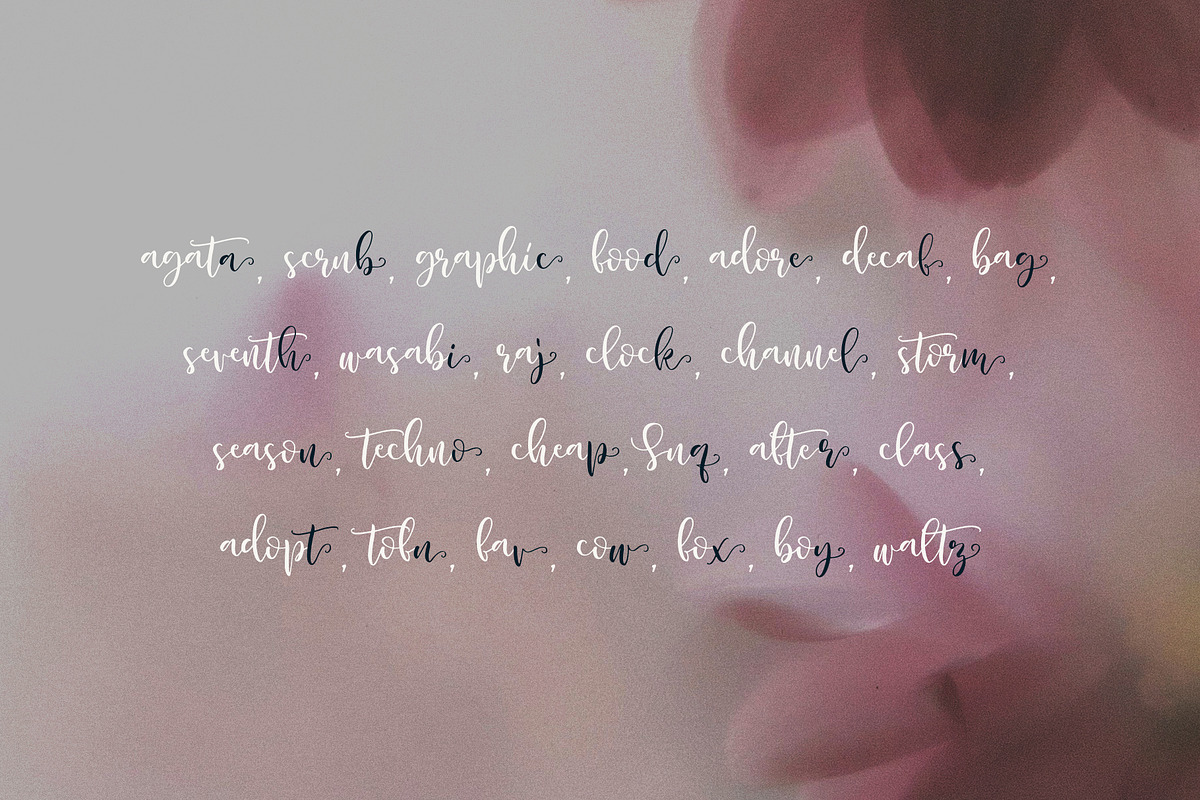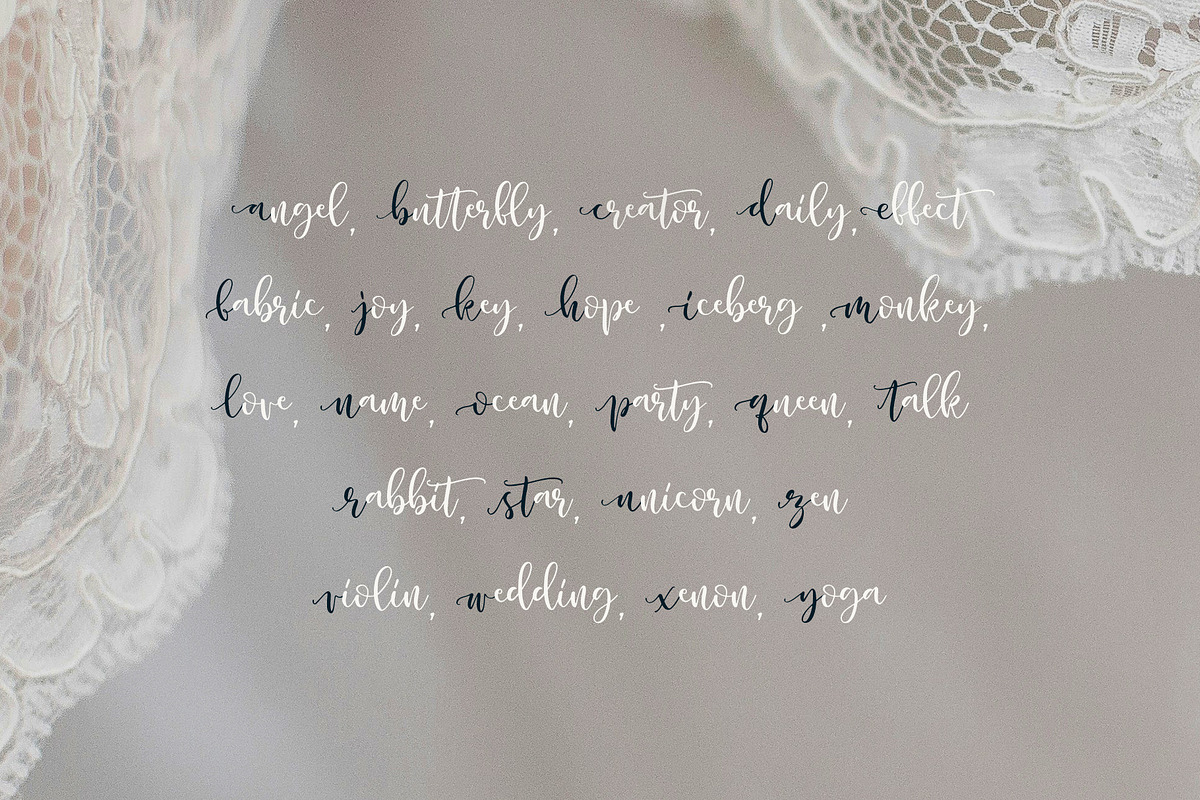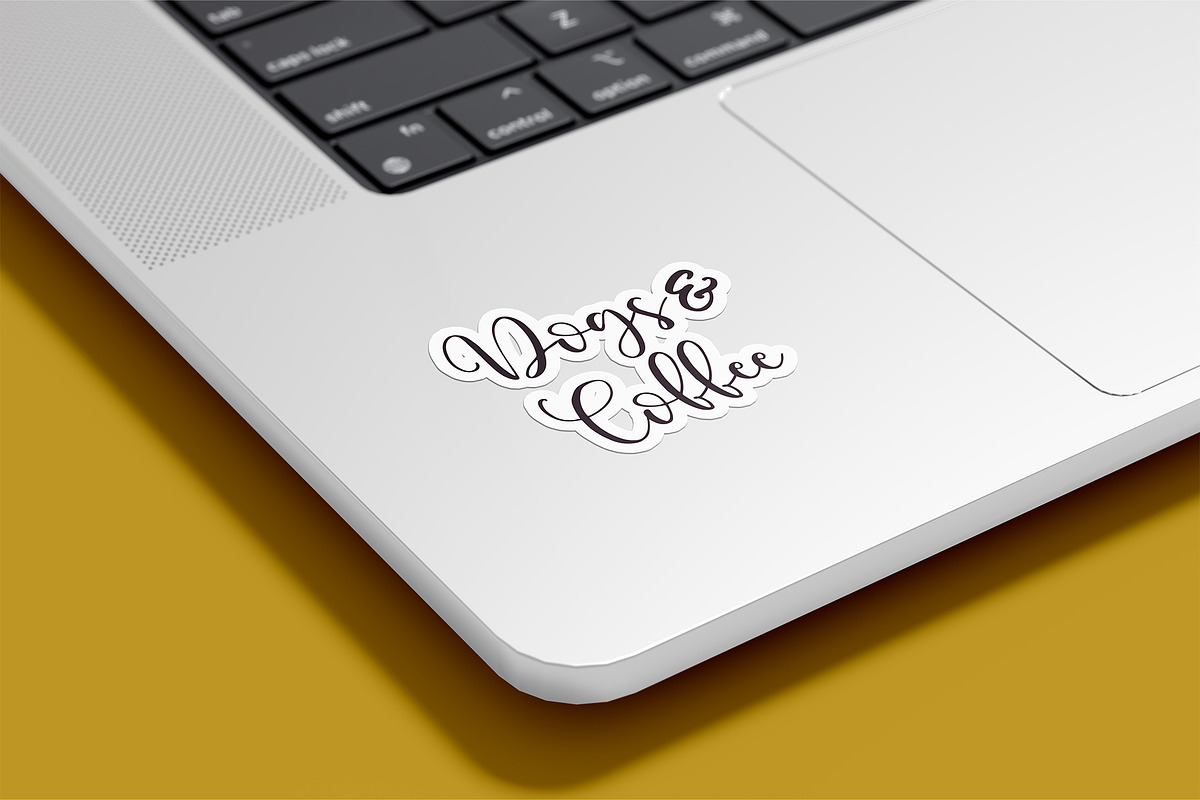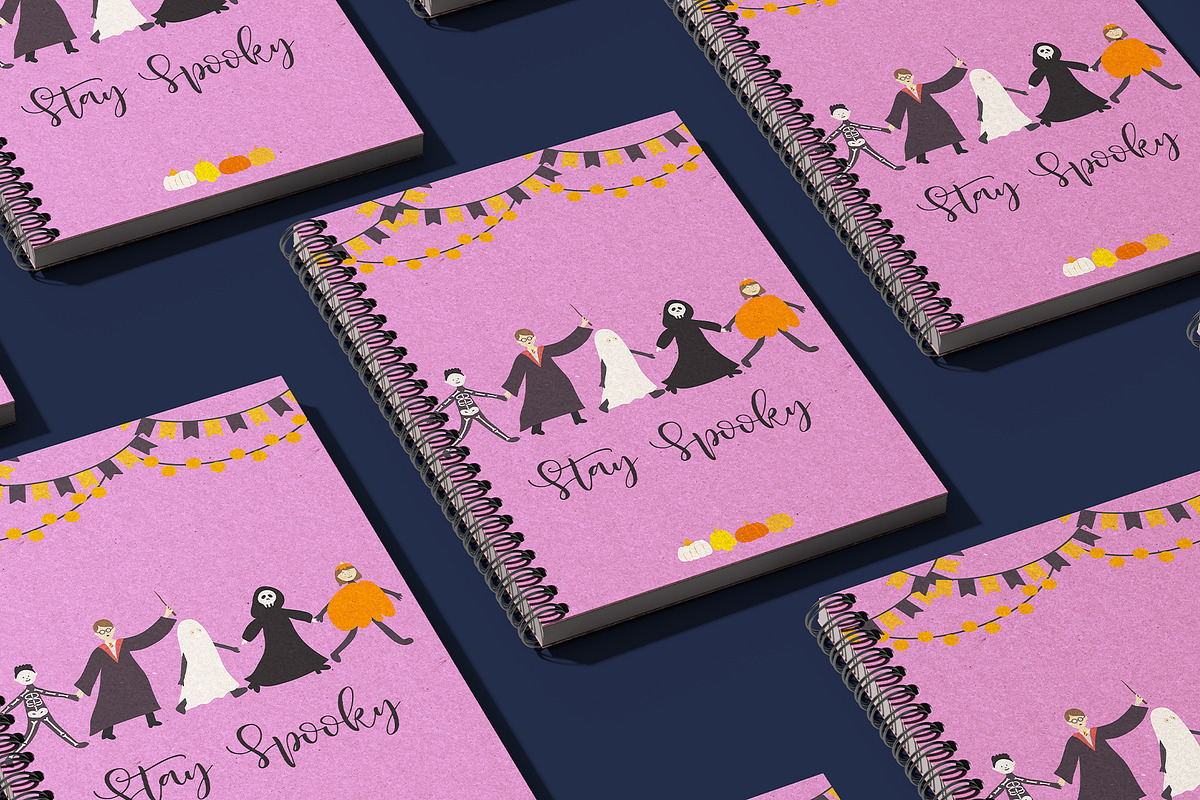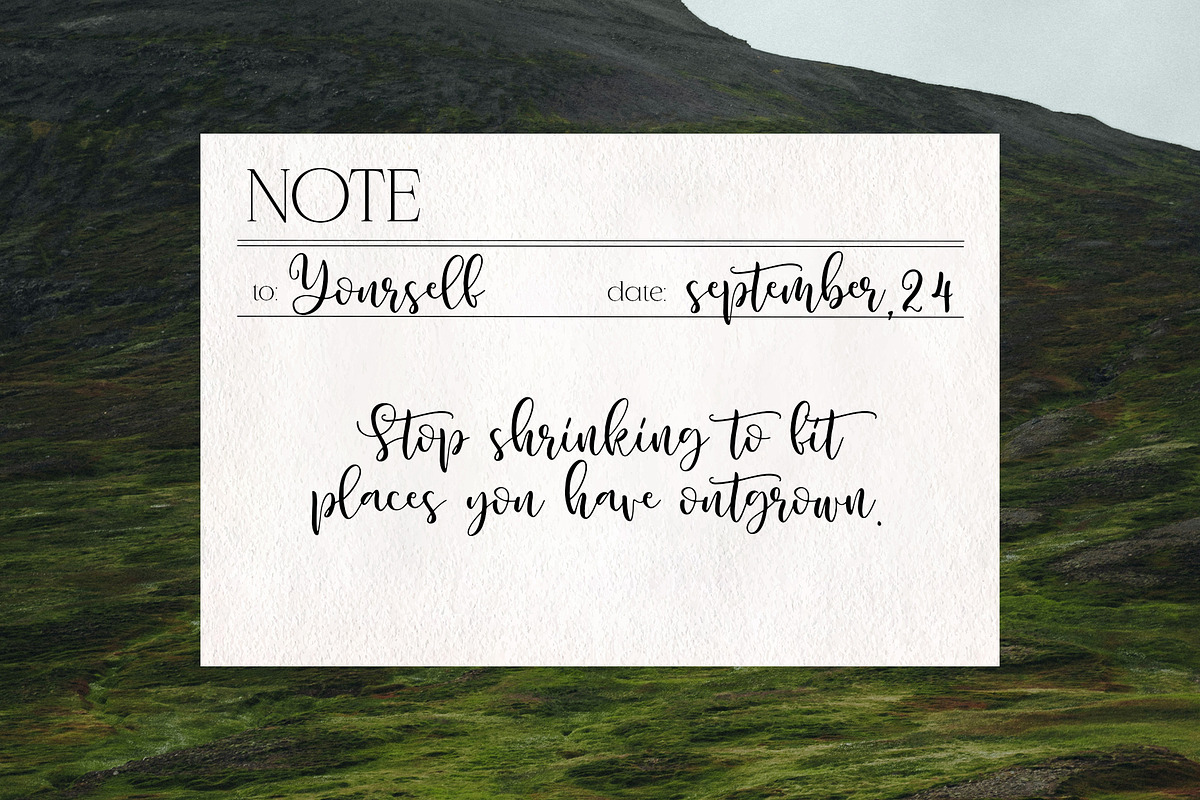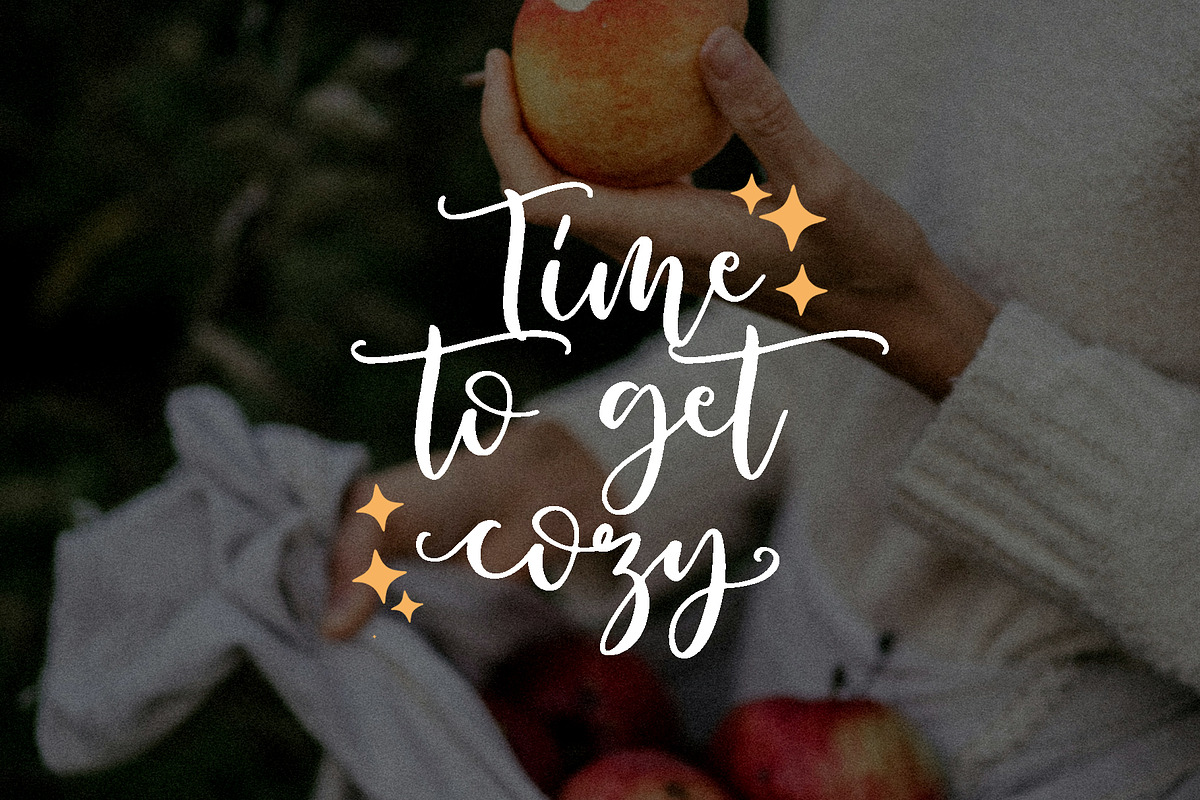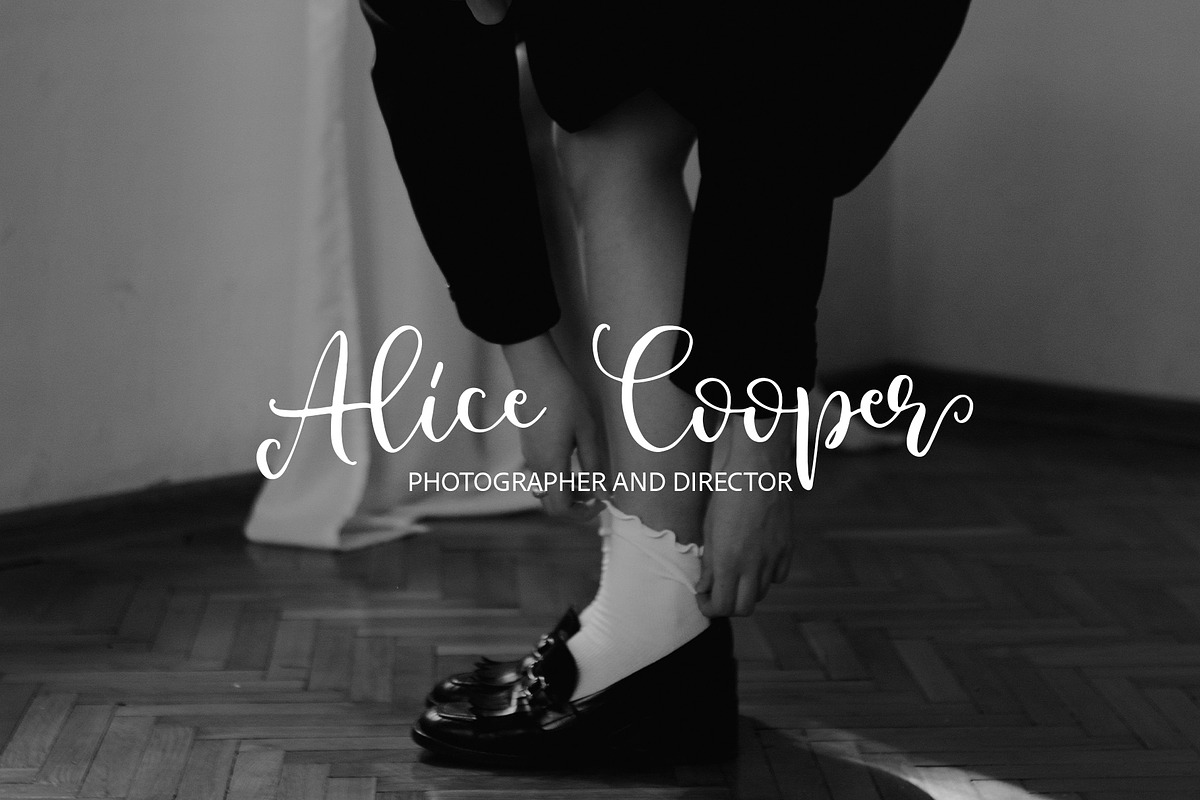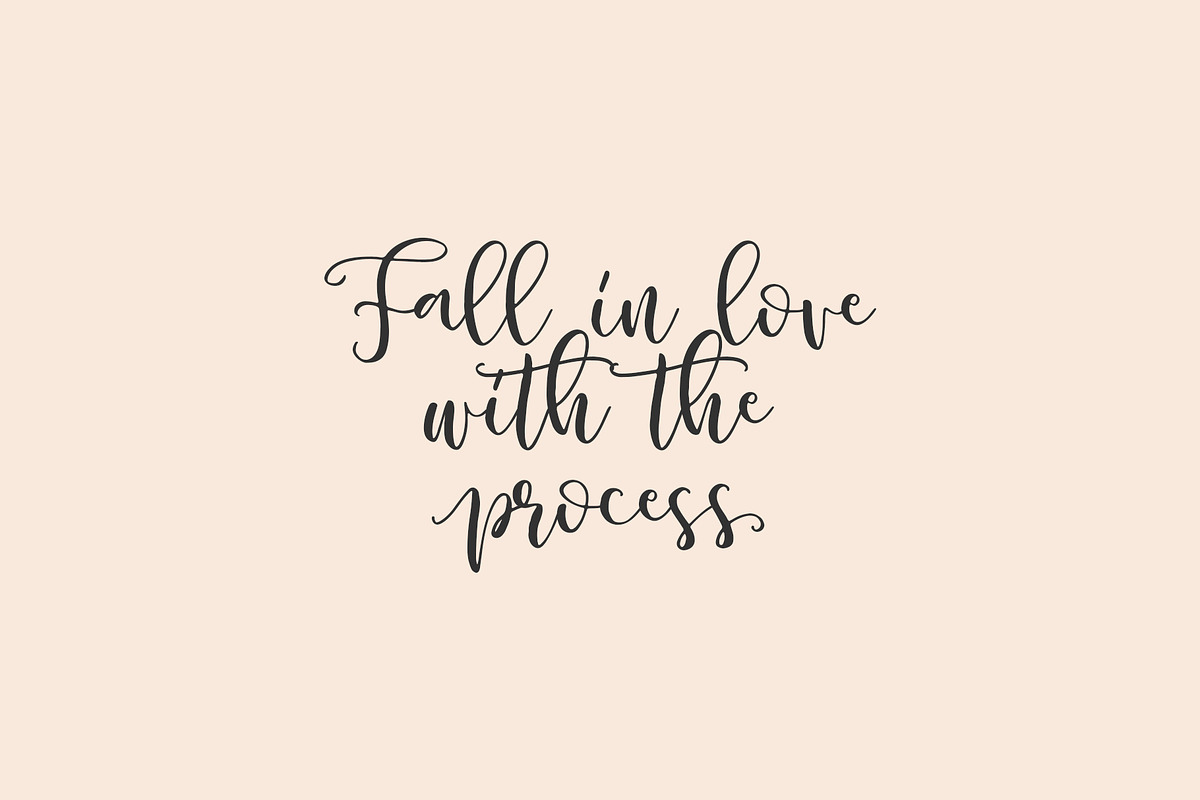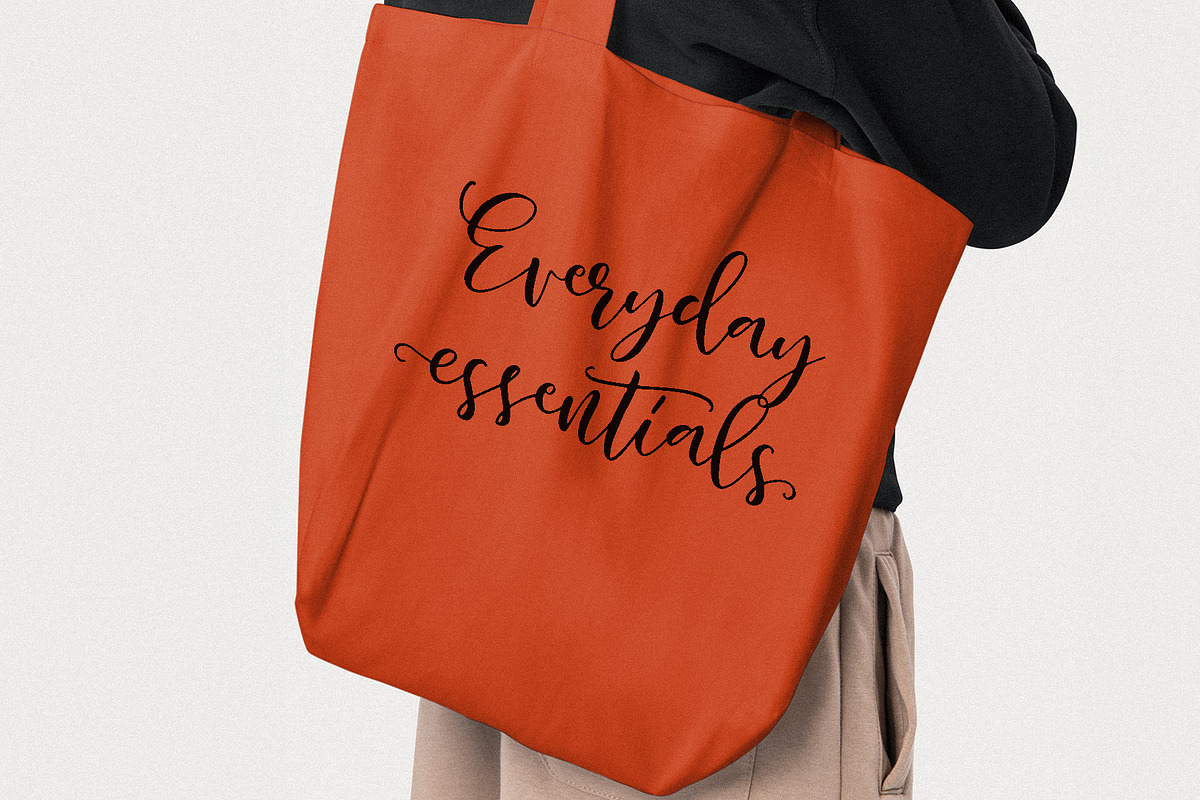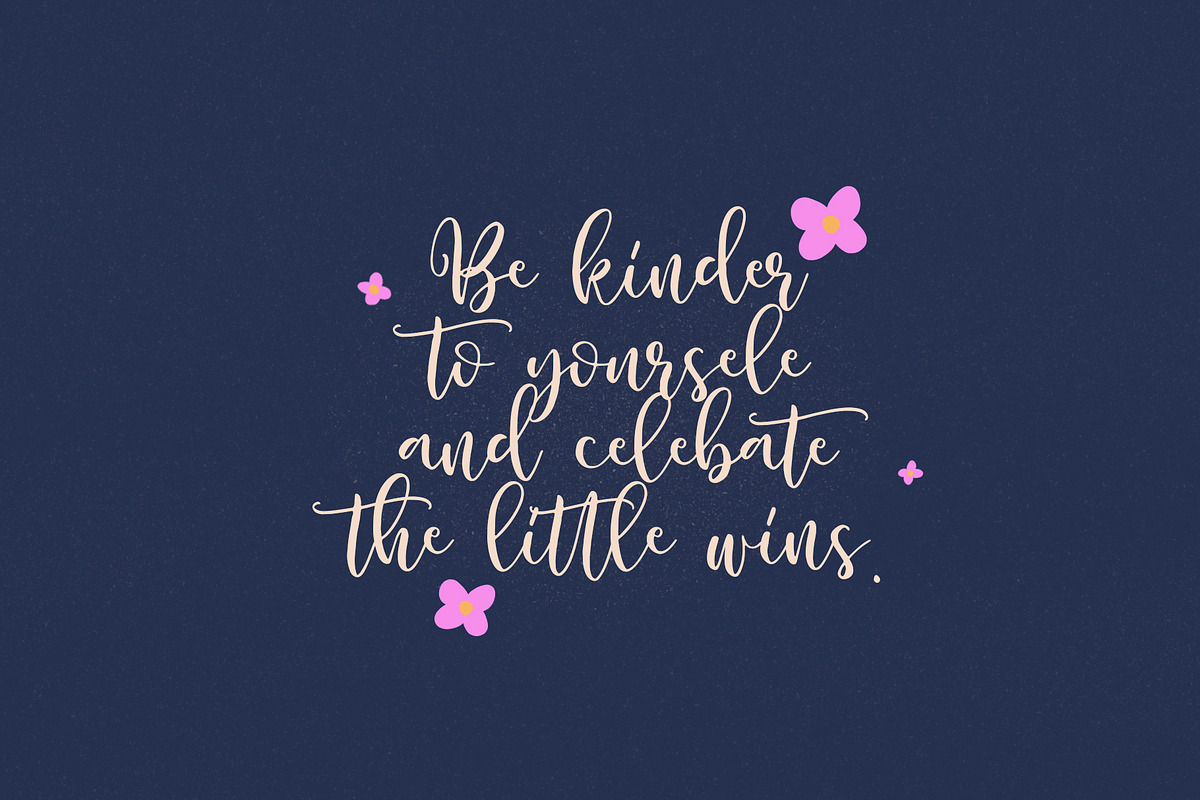
Sunset Garden handwritten font
Sunset Garden handwritten signature font. Perfect for greeting cards, wedding stationery, photographer watermarks logos, modern websites, apparel design and more.
Sunset Garden handwritten signature font:
- Full Set of standard alphabet and punctuation
- Handwritten ligatures
- Multilingual Characters: - ßðæœÞþfiflÀÁÂÃÄÅÆÇÐĐÈÉÊËÌÍÎÏŁÑÒÓÔÕÖØŒŠÙÚÛÜŸÝŽàáâãäåçđèéêëìíîïłñòóôõöøšùúûüýÿž